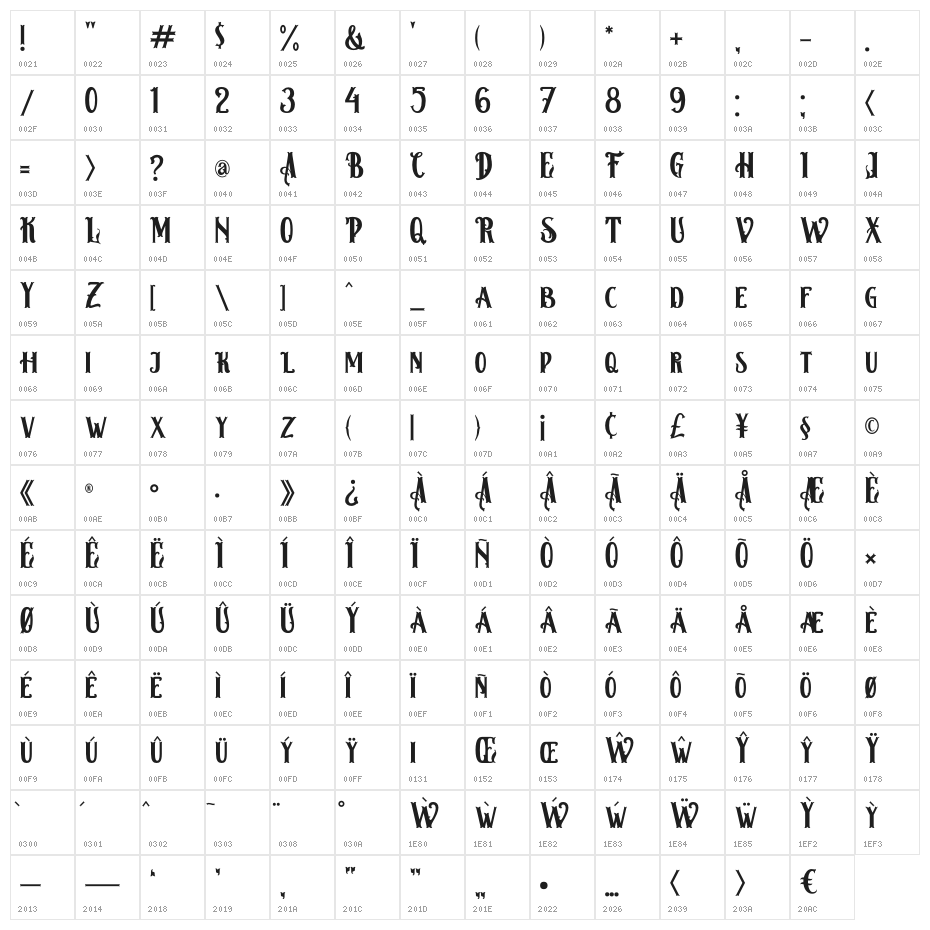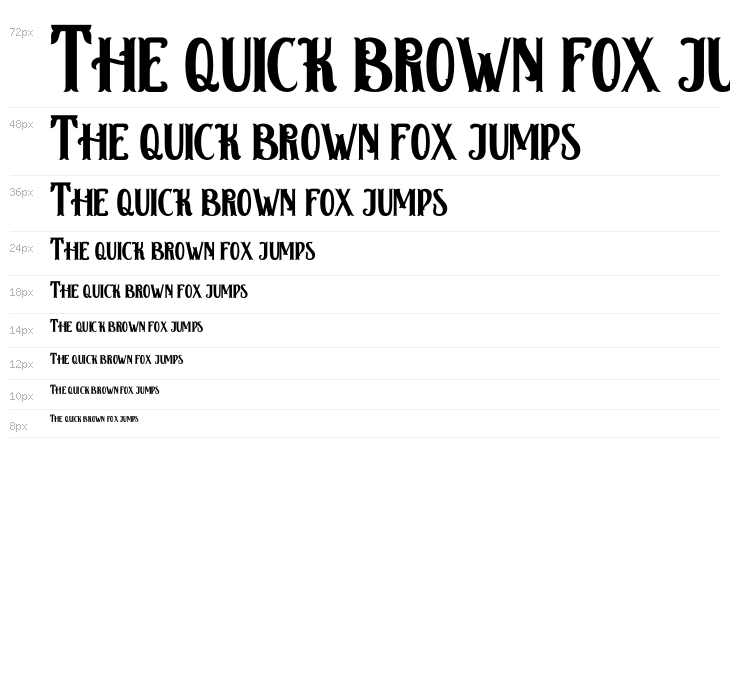
Hamburg Regular Font
Hamburg Regular Description
This font features a bold and decorative style with intricate details, making it stand out with its unique character shapes. The uppercase letters have a strong presence with elaborate serifs and flourishes, while the lowercase letters maintain a consistent style that complements the uppercase. The numbers are equally bold, ensuring readability while maintaining the decorative theme. Special characters are designed to match the overall aesthetic, adding to the font's cohesive look. This font is ideal for projects that require a touch of elegance and creativity.